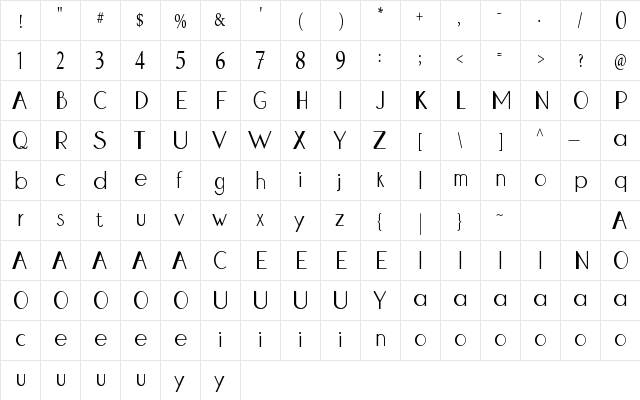
Izumi Hana Regular
| Foundry | Frederik Aristaputra |
| Designer | Frederik Aristaputra |
Design Context for Izumi Hana Typeface
Izumi Hana is a composed and adaptable typeface that performs quietly and consistently across a wide range of design contexts.